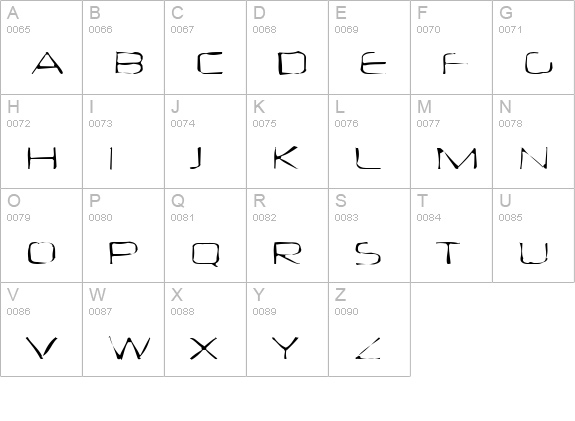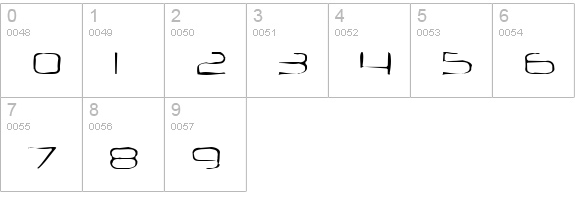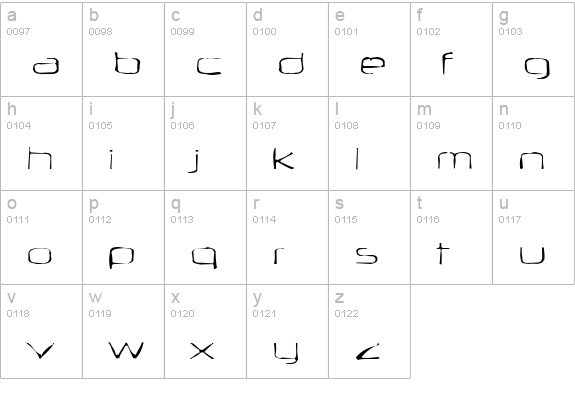
Neuropol Gaunt Font Details
Neuropol Gaunt font is a sleek and futuristic typeface that exudes a sense of modernity and sophistication. With its sharp lines and geometric shapes, this font is perfect for projects that require a contemporary and edgy look. The angular design of Neuropol Gaunt gives it a distinct visual appeal that sets it apart from traditional fonts. The best part about Neuropol Gaunt font is that it is completely free to download. You can easily get your hands on this unique typeface at FontsMarket.com, where you can access a wide range of free fonts to elevate your creative projects. Whether you're working on a website, poster, logo, or any other design project, Neuropol Gaunt font will add a touch of modern flair that is sure to impress. Don't miss out on this opportunity to enhance your designs with this stylish and free font!